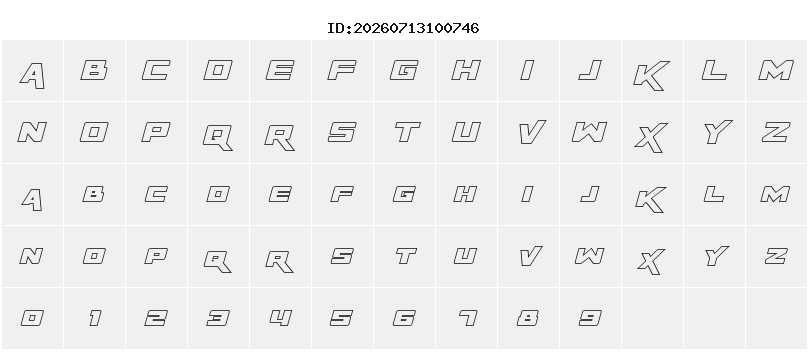
• Font Name: Rapier Zero Hollow
• Font ID: Rapier Zero Hollow Italic:Version 1.50
• Full Font Name: Rapier Zero Hollow Italic
• Version: Version 1.50 January 19, 2015
• PostScript Name: RapierZeroHollow-Italic
• Character Count: 242
• Designer: Neale Davidson
• Manufacturer: Pixel Sagas
About Rapier Zero Hollow.otf
Rapier Zero Hollow.otf is a modern, elegant sans-serif font designed for ultimate readability and visual harmony. Perfect for branding, headlines, web design, and print materials.